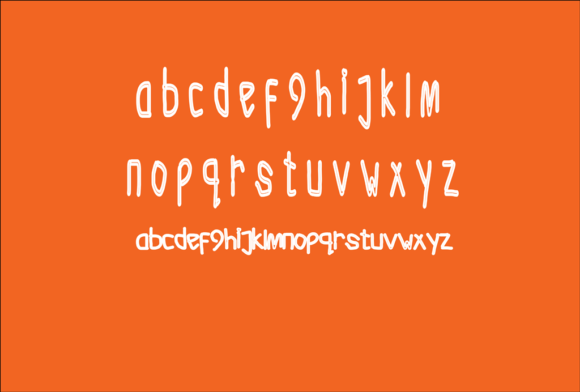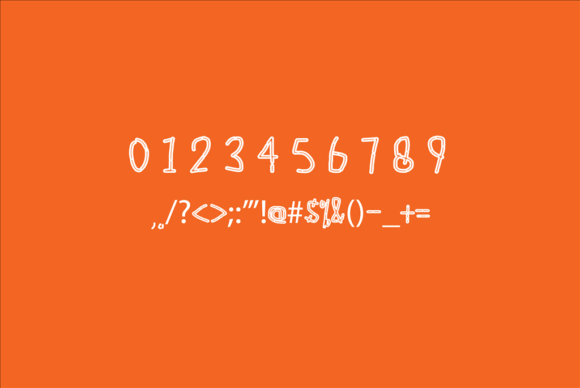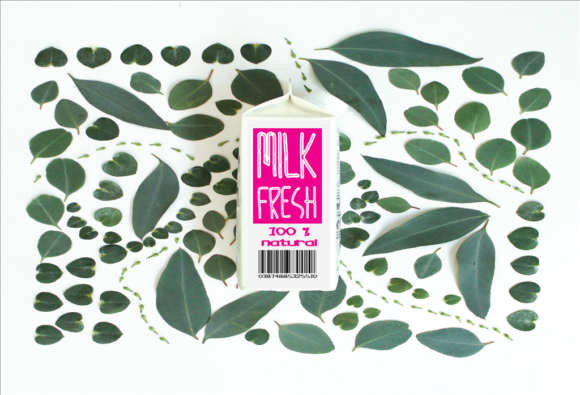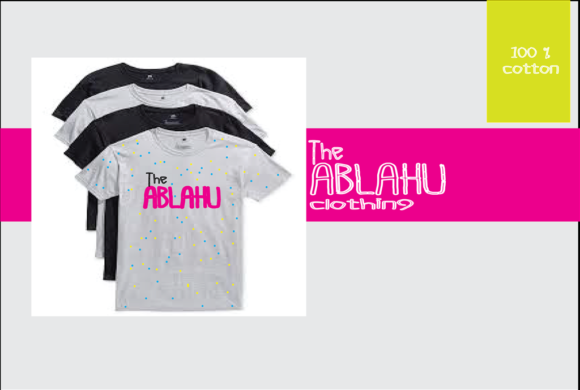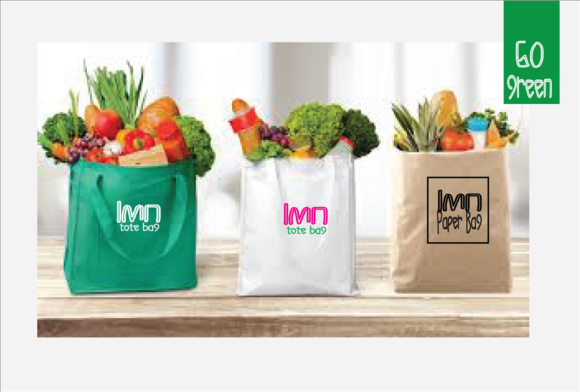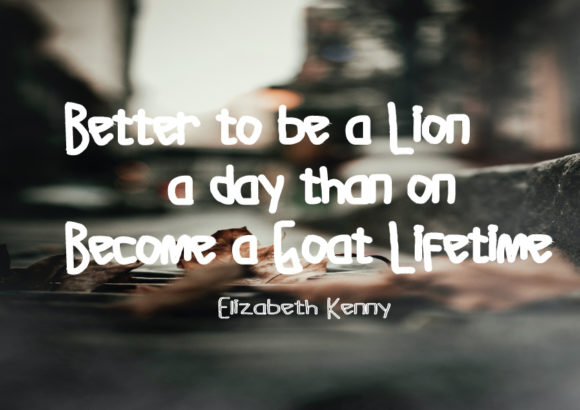
Introduction to Lookups Font
Lookups is a fun and crafty display font.
Tall and simple, this font is incredibly fitting to a wide range of designs Whether youโre using it for crafting, digital designing, presentations or greeting cards making, itโs perfect.